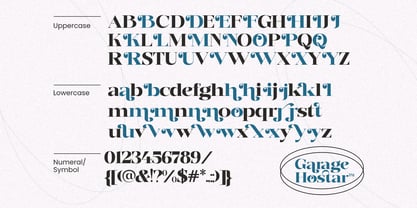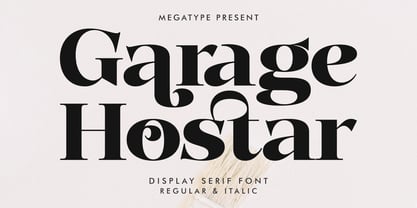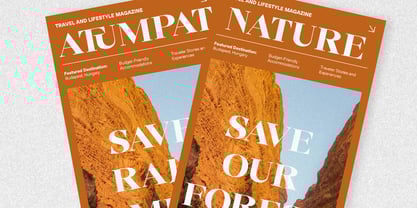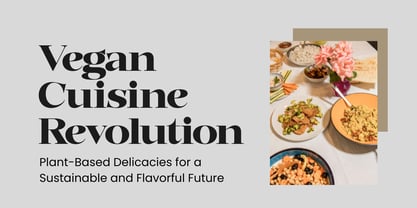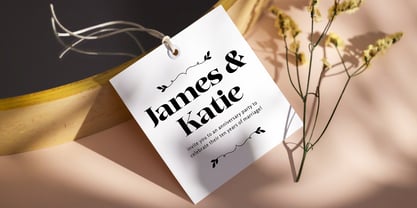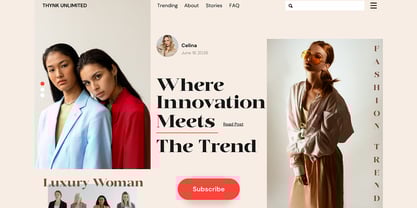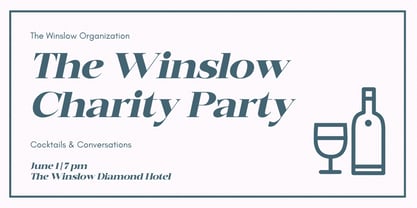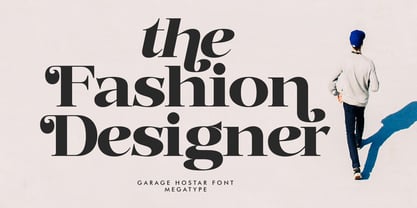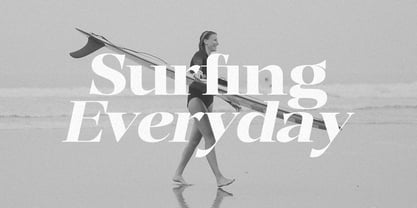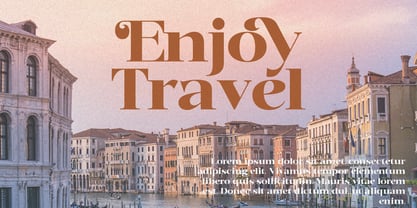
Garage Hostar
by Mega Type
The Garage Hostar Font Family was designed by M Akmal and published by Mega Type. Garage Hostar contains 2 styles.
Garage Hostar is a unique and highly expressive serif font that merges classical elegance with playful, modern detailing. It features high-contrast letterforms typical of Didone-style typefaces, but with a dramatic twist—ornamental teardrop terminals and exaggerated curves that bring a whimsical, almost theatrical flair to its appearance. The consistent vertical stress and sharp contrast between thick and thin strokes ground the font in traditional serif principles, while the flourishes and loops offer a striking, unconventional character suited for artistic expression.
The versatility of Garage Hostar lies in its ability to function both as a headline display typeface and a logo-defining element. Its uppercase set conveys boldness and authority, while the lowercase letters enhance the typeface's personality with fluid, calligraphic motion.
Garage Hostar ideal for use in branding, editorial titles, luxury packaging, or modern posters, Garage Hostar makes a strong statement while remaining legible and thoughtfully designed. The font successfully bridges vintage sophistication and contemporary playfulness, making it a standout choice for designers seeking originality and flair.